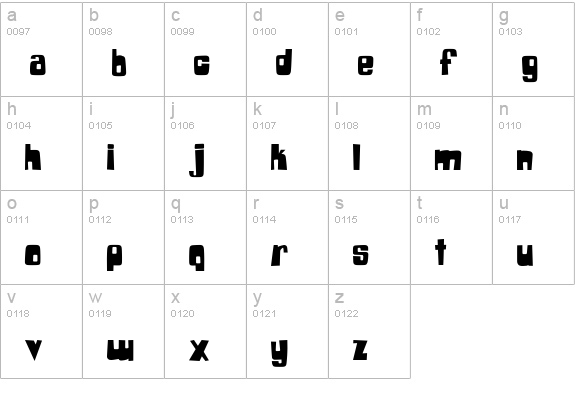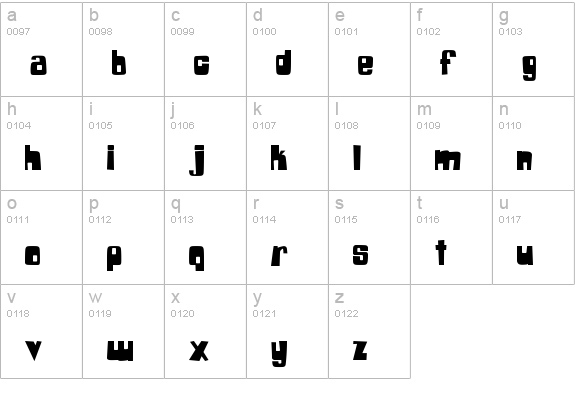
Boochie Font Details
Boochie font is a charming and playful typeface that exudes a sense of whimsy and creativity. With its unique letterforms and quirky details, Boochie is perfect for adding a touch of fun to your designs. This versatile font can be used for a variety of projects, from branding to packaging to social media graphics. Best of all, Boochie font is available for free download at FontsMarket.com. Whether you're a seasoned designer looking to add a fresh new font to your collection or a beginner exploring the world of typography, Boochie is sure to inspire and delight. Download Boochie today and let your creativity soar!